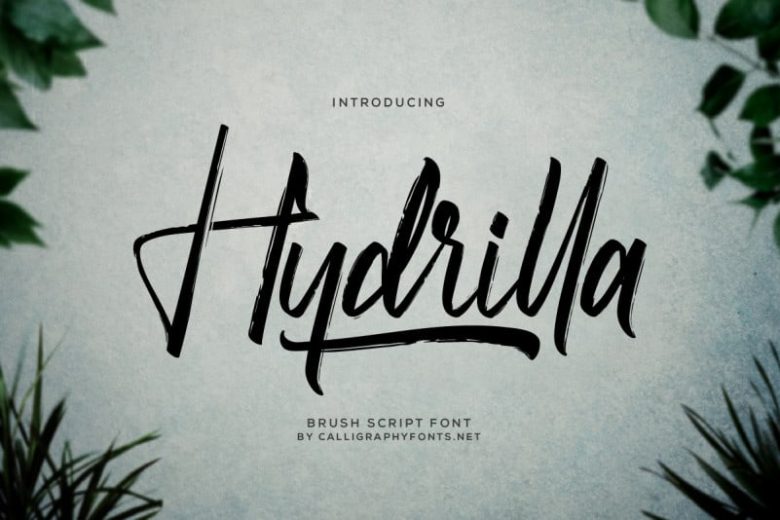
Hydrilla Textured Font
Hydrilla Textured Brush Font
Hydrilla Textured Brush Font is a brush font with a unique texture; delivering a stylish script which is guaranteed to add an eye-catching appeal. The style of this font are stylish, classic, elegant, a fresh new handwritten brush script with a touch of class, and of course, outstanding looks .